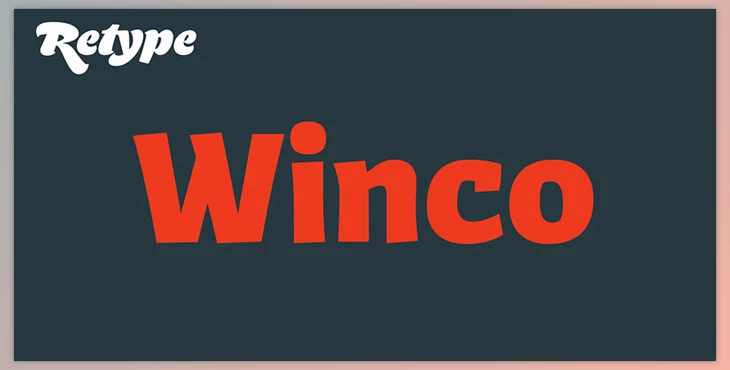
The Winco Font Family is a true blend of history and art. It emerges from the hand-lettered book covers of notable designers Helmut Salden and Boudewijn Ietswaart, as well as a variety of German and Czech printing types used predominantly in the twentieth century. The letterforms represent the true blending of hand-painted manuscripts and metal types with slightly varied stroke contrast, flared and angled ends, and a very economical nature with strong corners, subtle curves, and well-defined endpoints. Therefore, it's an ideal font for body copy and display work. It adds a personality to your job and, thus, is an excellent choice for widespread use.